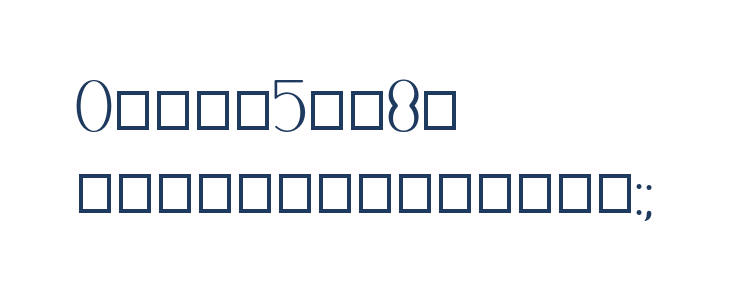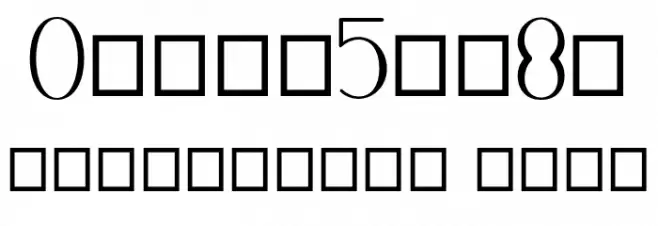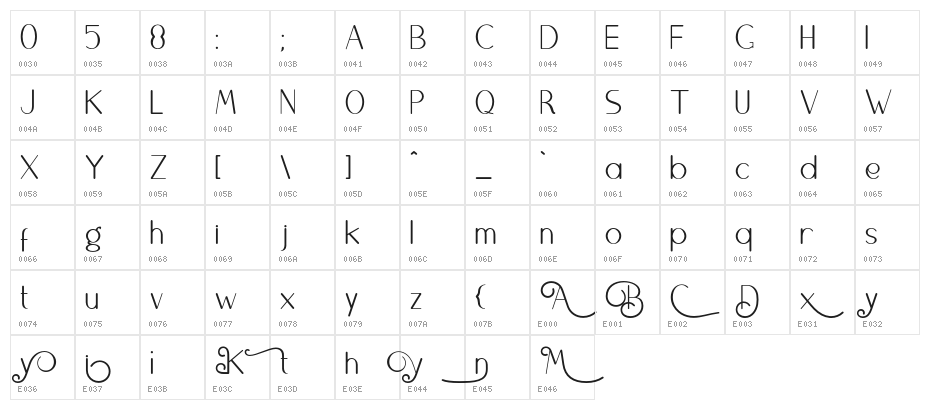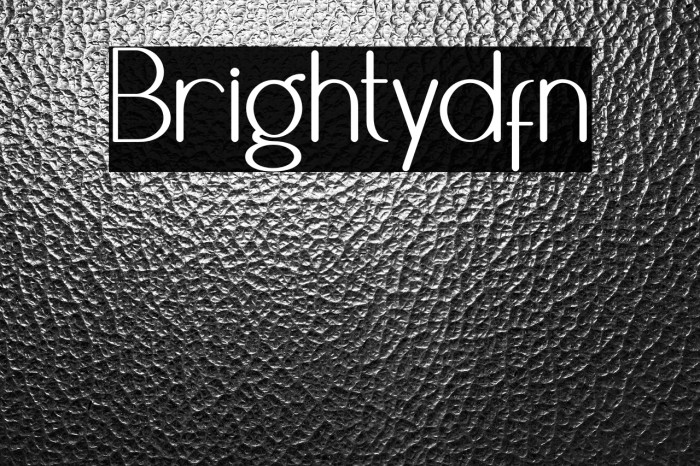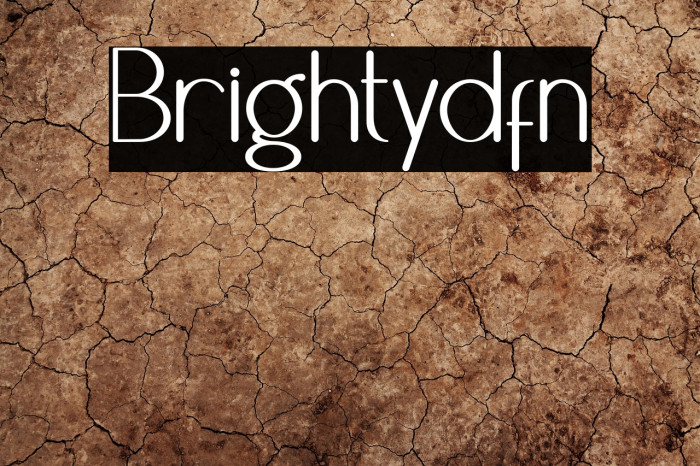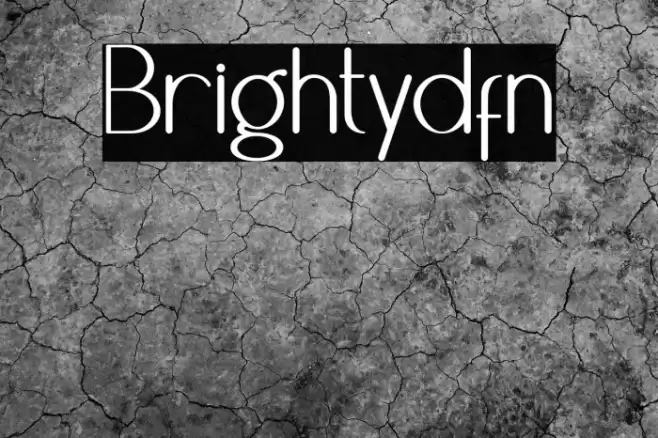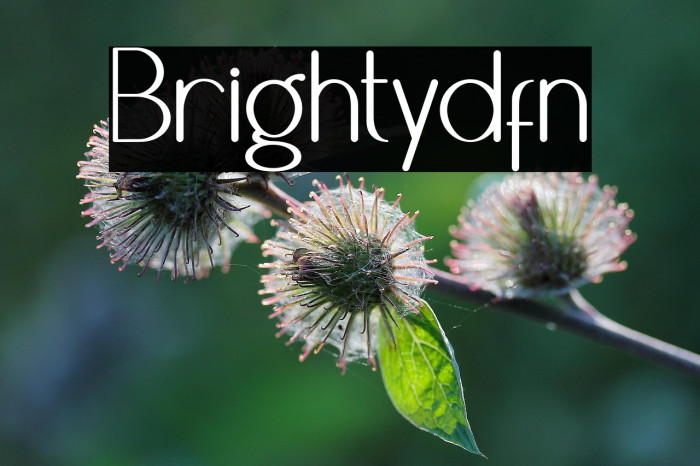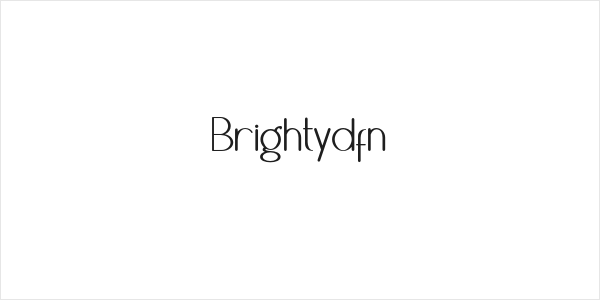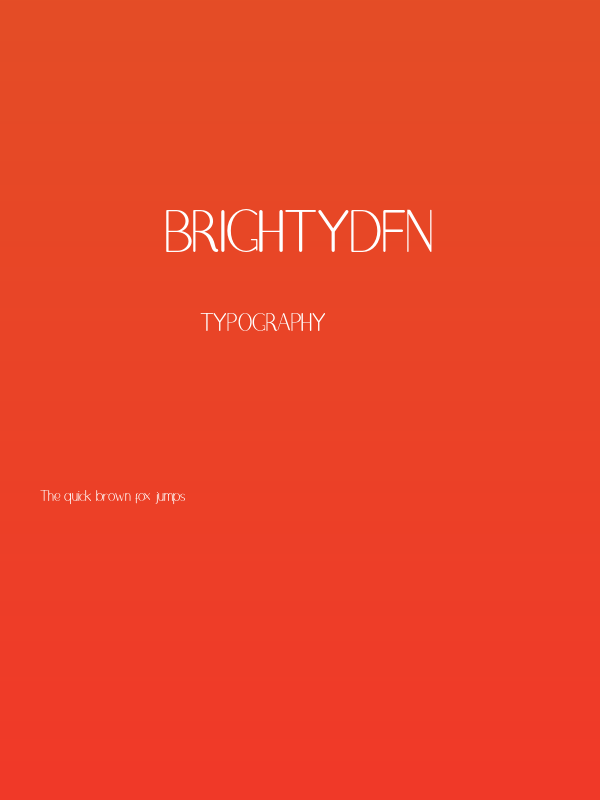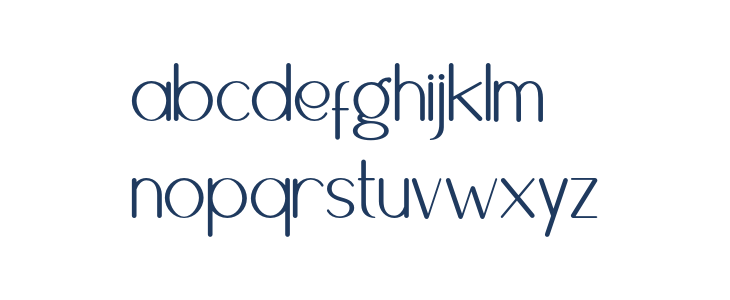
Brightydfn Font
Brightydfn Description
This font features a modern and sleek design with clean lines and a geometric structure. The uppercase letters are tall and narrow, giving a sophisticated and elegant appearance. The lowercase letters maintain a consistent style, with rounded edges that add a touch of softness to the overall look. The numbers are distinct and clear, ensuring readability. The special characters are designed to match the overall aesthetic, making them suitable for a variety of uses. This font is versatile, offering a contemporary feel that is both stylish and functional.
| Proposed Projects | Ideal for branding, advertising, and editorial design projects where a modern and sophisticated look is desired. |